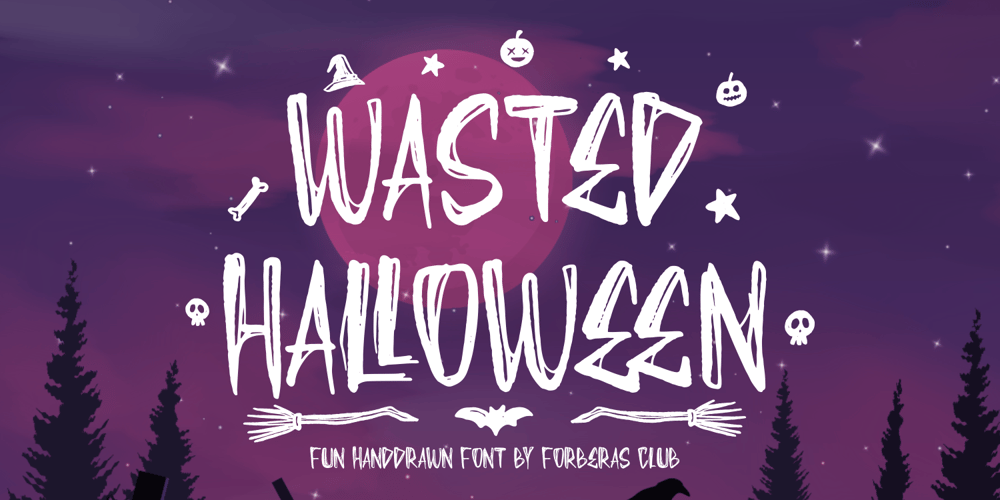
Wasted Halloween Font Family was designed by ANGGI HERMAWAN and published by Forberas Club. Wasted Halloween contains 1 styles and family package options. This font lowercase is full of a unique halloween symbol, and the Uppercase is the alphabet. Hope this font can help your event or your project. Feel free to contact us if you have something to ask.